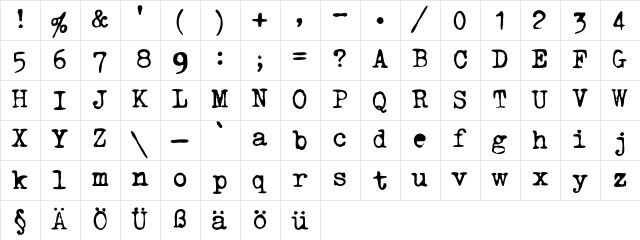
Triumph Tippa Regular
Design Context for Triumph Tippa Typeface
Triumph Tippa takes a measured approach to typography — its balanced proportions and neutral character make it a reliable workhorse for both digital and print work.